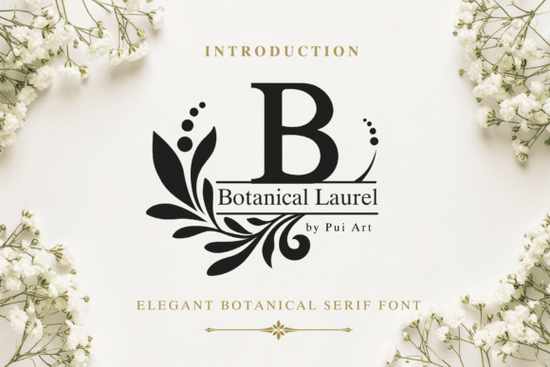
If you are looking to add a touch of refined elegance to your print projects, finding the perfect blend of structure and organic flair can be challenging. Many designers struggle to balance readability with artistic detail, especially when working on luxury branding or wedding invitations. This is where the Botanical Laurel Font stands out as a reliable tool for creating sophisticated visual identities. Its classic serif letters paired with graceful laurel leaf flourishes provide a timeless aesthetic that feels hand-crafted rather than mass-produced.
What makes this typeface unique for creative work?
Unlike standard serif fonts that often feel corporate or stiff, this design incorporates nature-inspired elements directly into the letterforms. The result is a decorative typeface that maintains legibility even at smaller sizes, making it suitable for detailed work like certificates or stationery. The refined ornamental details create a stylish look that instantly elevates the perceived value of any document.
When selecting a font for a high-end project, consistency is key. You want a file that includes proper character sets to ensure accents and symbols appear correctly across different software platforms. Most modern desktop publishing tools handle OpenType features well, allowing for ligatures that connect the leaves smoothly with the strokes. It pairs beautifully with simpler sans-serif body text, providing contrast while keeping the overall design unified. If you need more variety, exploring a broader selection of decorative fonts can help you find the right mix for your layout hierarchy.
Ideas for application in personal and commercial projects
One of the most popular uses for this style is in event planning. Wedding invitations benefit greatly from the romantic and lush feel of the foliage accents. It works exceptionally well for monogram headers, guest list signs, or even table number assignments. Because the font carries a sense of tradition, it fits formal events better than a modern script would, without appearing dated.
Small business owners selling handmade goods often turn to this font for packaging labels. Whether you are creating skincare boxes, gift wrap, or artisanal coffee bags, the logo created with this typeface communicates quality and care. It also serves as a strong foundation for merchandise printing. Print-on-demand sellers frequently use it for t-shirt graphics that lean towards vintage or earthy themes. However, it is important to remember that complex flourishes can sometimes lose detail during sublimation printing, so testing a sample before running a large batch is always wise.
- Wedding Stationery: Perfect for invites, menus, and welcome signs.
- Luxury Branding: Creates an upscale impression for cosmetics or boutiques.
- Certificates: Adds authority and formality to diplomas or awards.
- Stationery: Enhances business cards and letterheads with organic charm.
How it compares to other decorative styles
Not every project requires a botanical theme. Sometimes you might need something edgier or purely typographic. While the Laurel design offers a garden-inspired vibe, there are alternatives depending on the mood you wish to convey. If you prefer a rugged aesthetic over a polished garden look, reviewing hand-drawn tattoo style options could be a good next step. Those designs often feature sharper edges and less curvilinear movement.
On the other end of the spectrum, some projects require a darker or more mysterious atmosphere. In those cases, a moodier decorative set might suit the copy better than the bright lines of leafy vines. It is helpful to visualize your final output before downloading assets to avoid mismatches in tone. Additionally, checking out other classic serif variations ensures you have enough choices to compare kerning and weight before committing to a specific purchase.